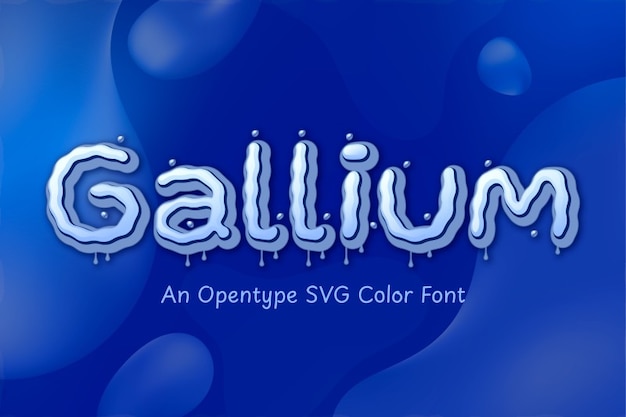
Gallium Font boasts a metallic essence with dripping, rounded letters, evoking a molten metal aesthetic. Its design captures the fluidity of metal, ideal for bold and industrial designs. Perfect for projects seeking a font that combines metallic allure with rounded, dripping elements, adding a distinctively molten and edgy vibe.